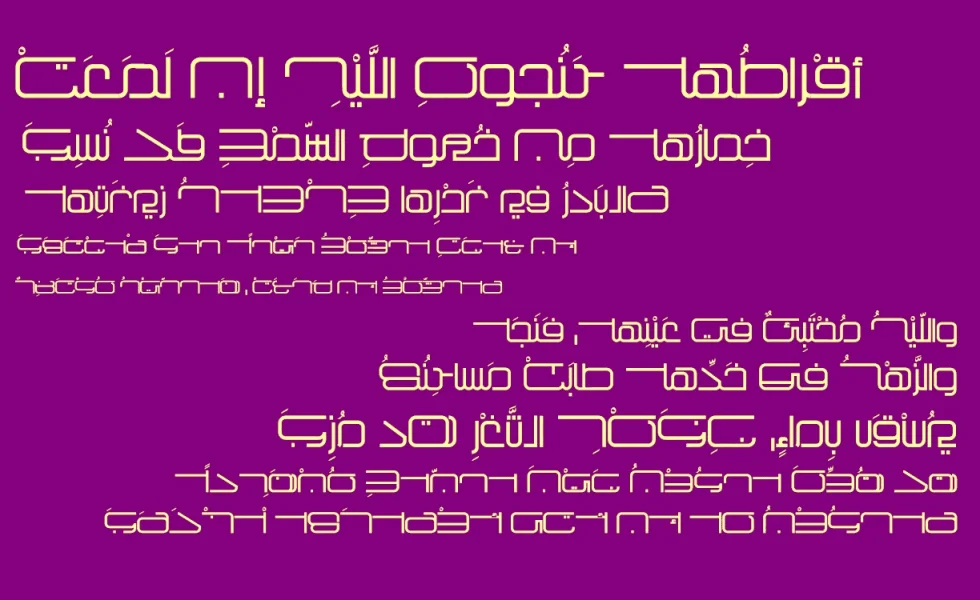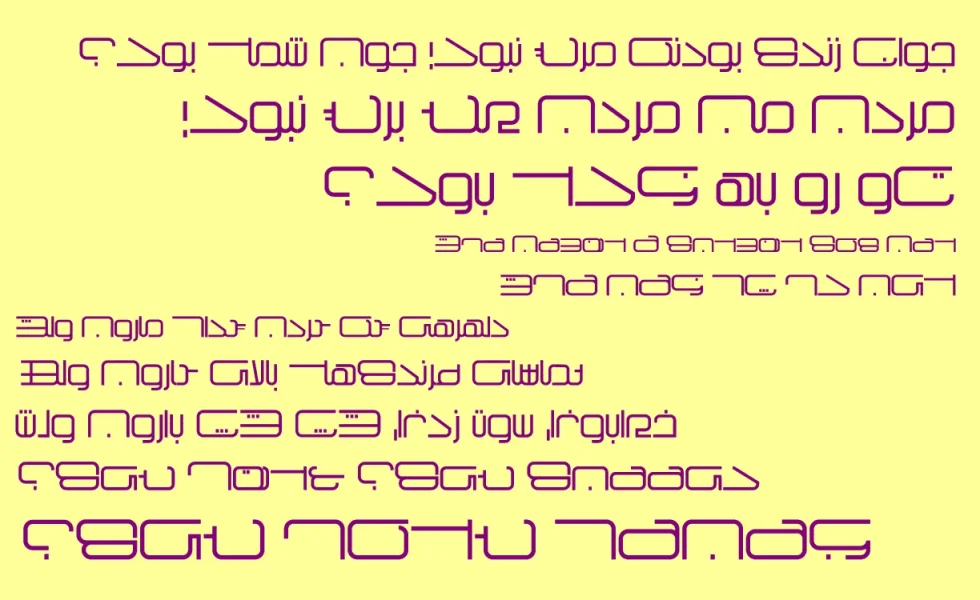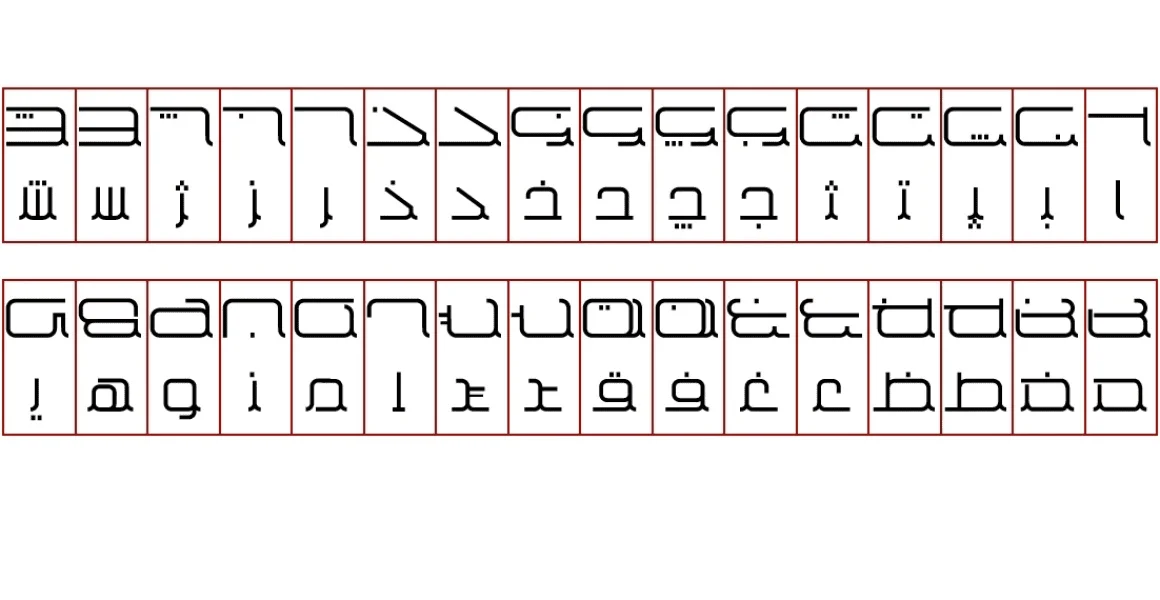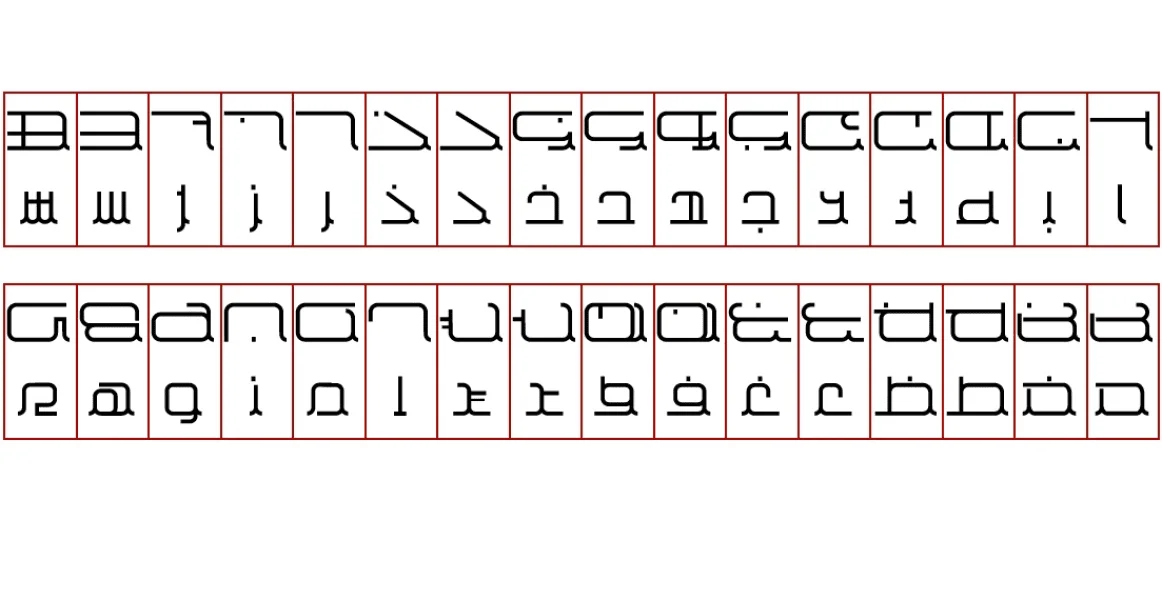
Zanjir (زنجیر, Chain) is the twin font family to the zanjirbof. The initial two styles within this font family, zanjir regular and zanjir LP, adhere to traditional Arabic conjoint font conventions. Furthermore, the shapes of the capitalized (isolated) letters have been adjusted to create a more cohesive aesthetic
The zanjir LP (Less Point) denotes the dot-reduced version, wherein glyphs containing two or more dots are substituted with new dotless shapes.
The zanjir MC (Mixed Case) mimics Latin fonts, allowing typists to select between lowercase and uppercase letters using a software Caps Lock key. This software Caps Lock feature can be activated or deactivated by entering the Tatweel letter. more…
The last two styles are Small Caps (zanjir SC) and All Caps (zanjir AC) versions of this font family.
This font family is inspired by the Radio 178.5 bold style.